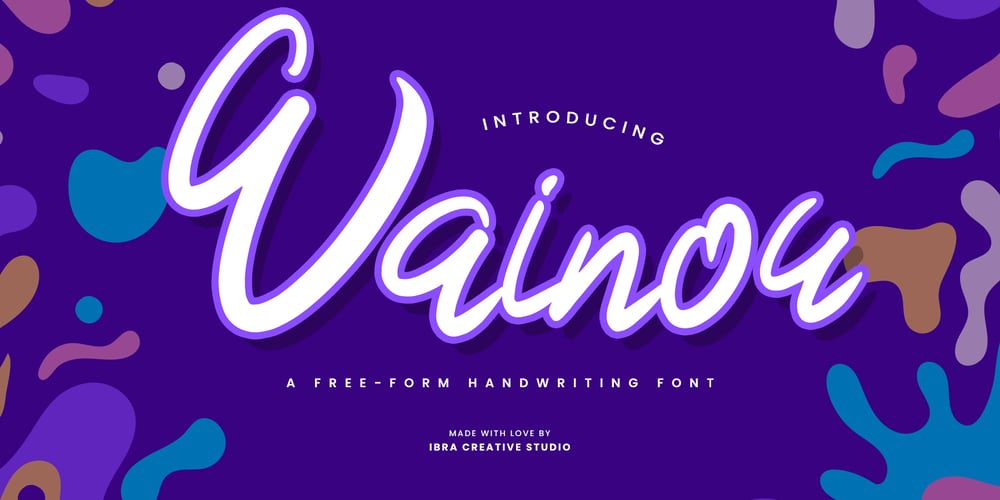
Wainou Font Family was designed by Roisatul Azizah and published by IbraCreative. Wainou contains 1 styles and family package options. Wainou, a free-form handwriting font, gracefully dances on the digital canvas, embodying the essence of unbridled self-expression. Its fluid strokes and whimsical curves breathe life into each character, fostering a sense of organic spontaneity that captures the nuances of individual penmanship. Wainou transcends the rigidity of conventional typefaces, inviting a playful journey through the artistry of personal writing styles. With a harmonious blend of elegance and informality, this font offers a delightful visual experience, evoking a handwritten note’s warmth and authenticity. Wainou stands as a testament to the beauty found in the unrestrained, inviting users to infuse their projects with the unique charm of personal expression.